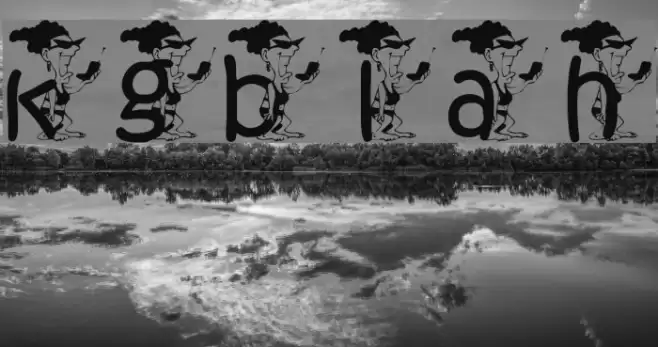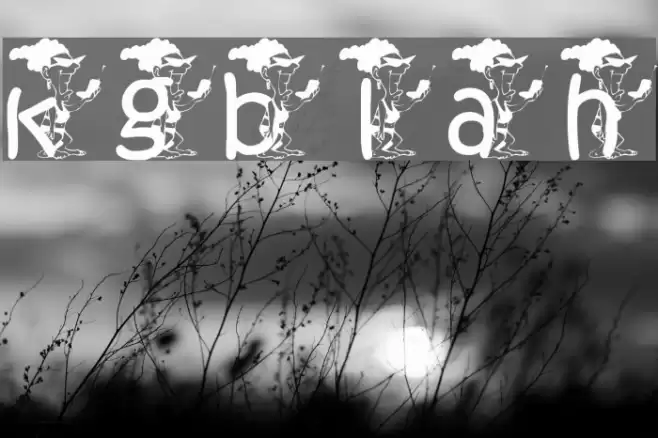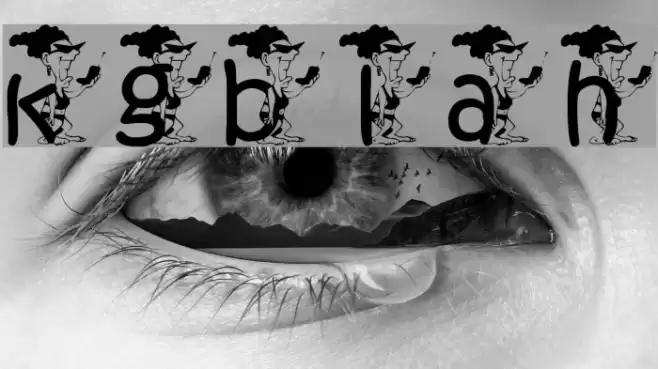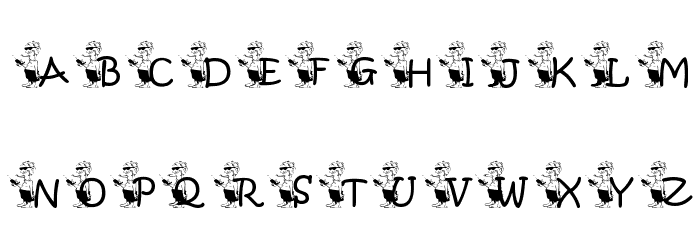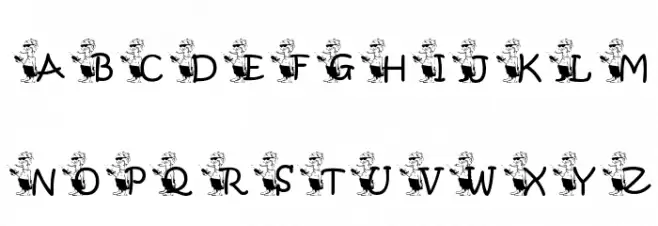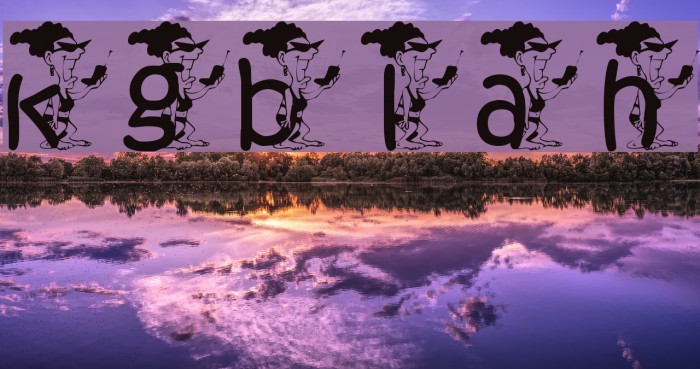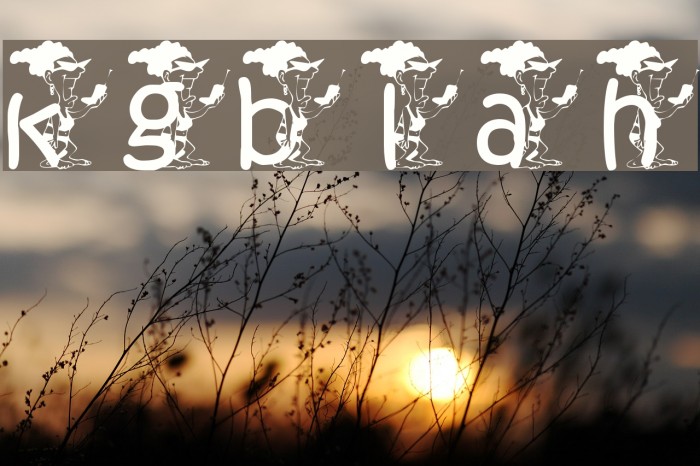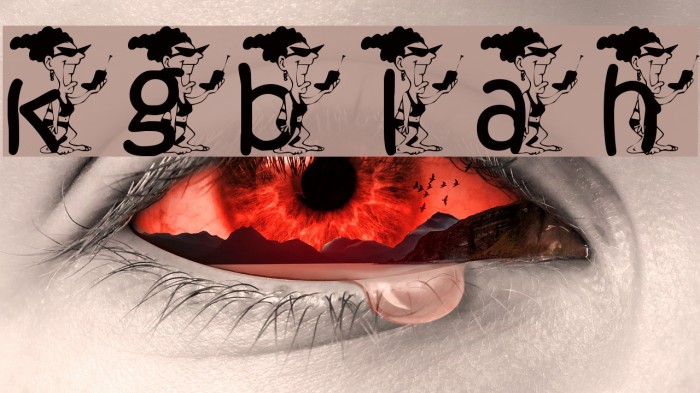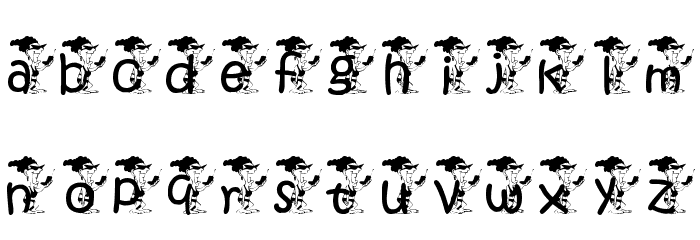
kgblah Font
kgblah Description
This font features a playful and whimsical design, incorporating cartoon-like characters into each letter. The characters are integrated into the structure of the letters, creating a unique and entertaining visual effect. The uppercase and lowercase letters maintain a consistent style, with the cartoon figures adding an element of fun and creativity. The numbers and special characters follow the same theme, ensuring a cohesive look across all elements. This font is ideal for projects that require a lighthearted and imaginative touch.
A playful font with cartoon characters integrated into each letter from Uncategorized fonts.
- Proposed Projects: Ideal for children's books, playful branding, party invitations, and creative posters.
- Overall Style: Whimsical and playful